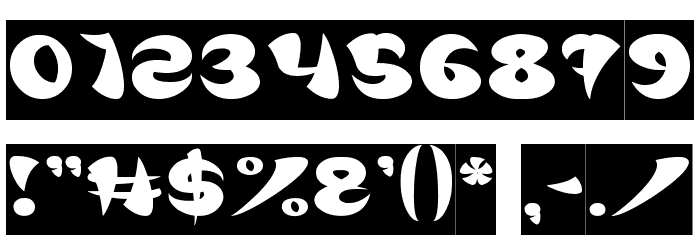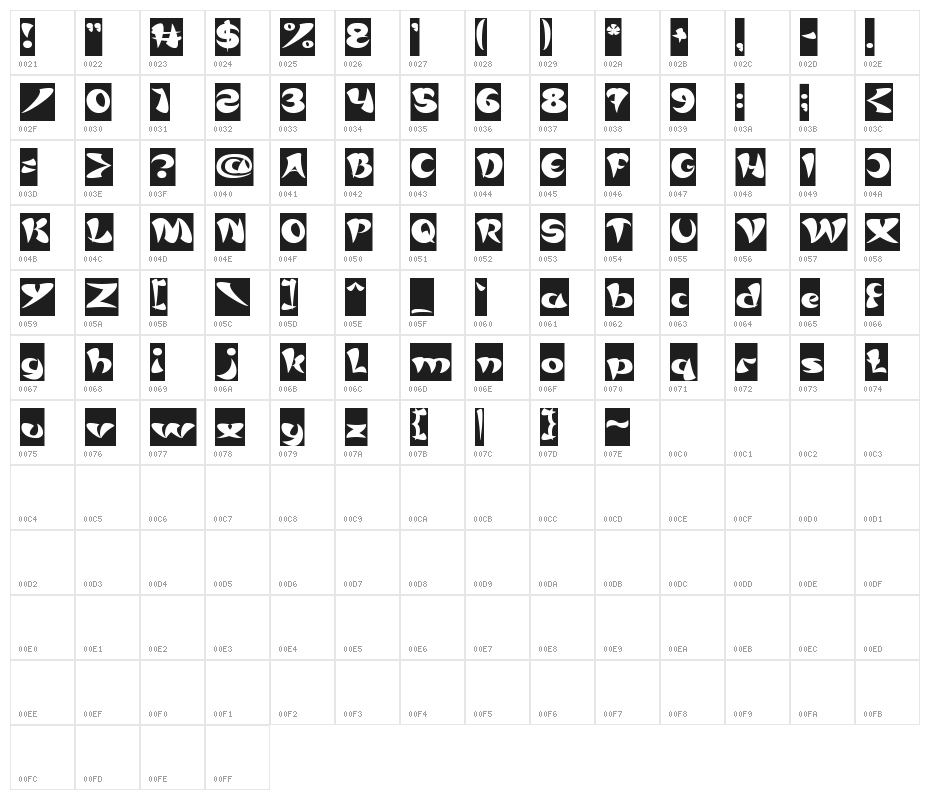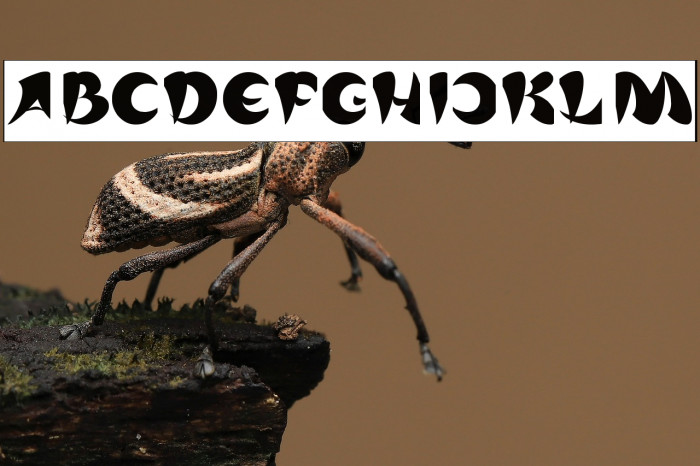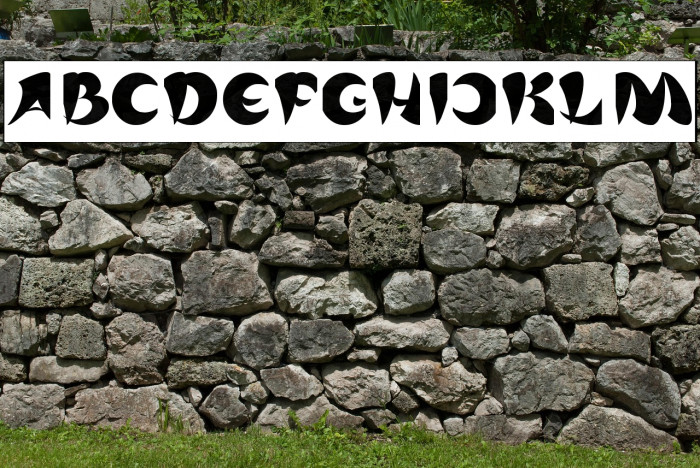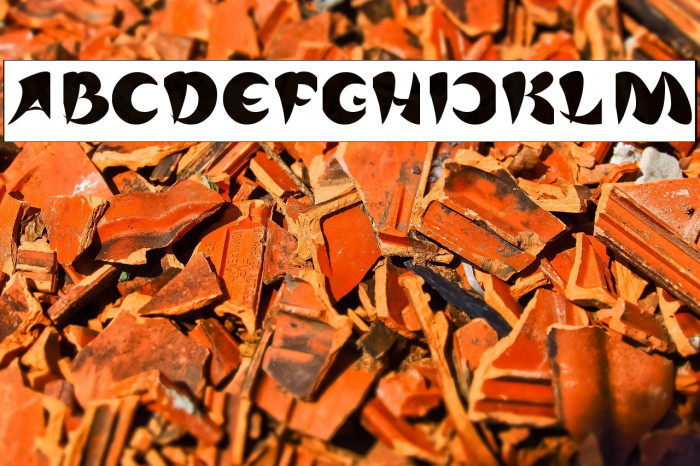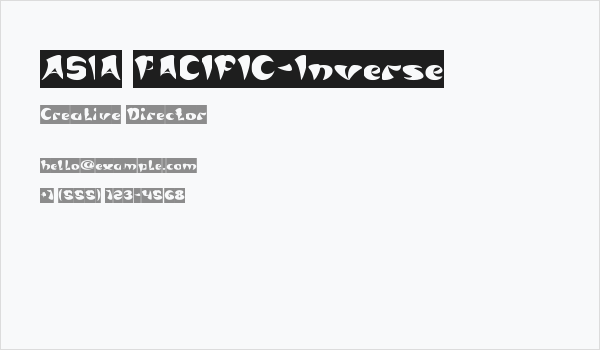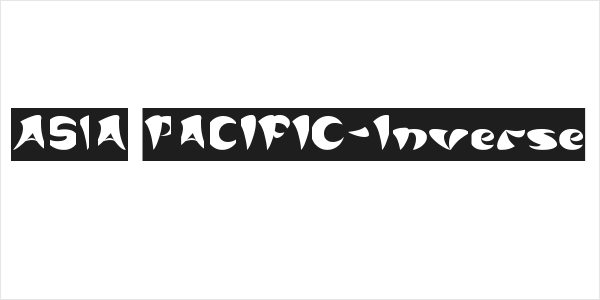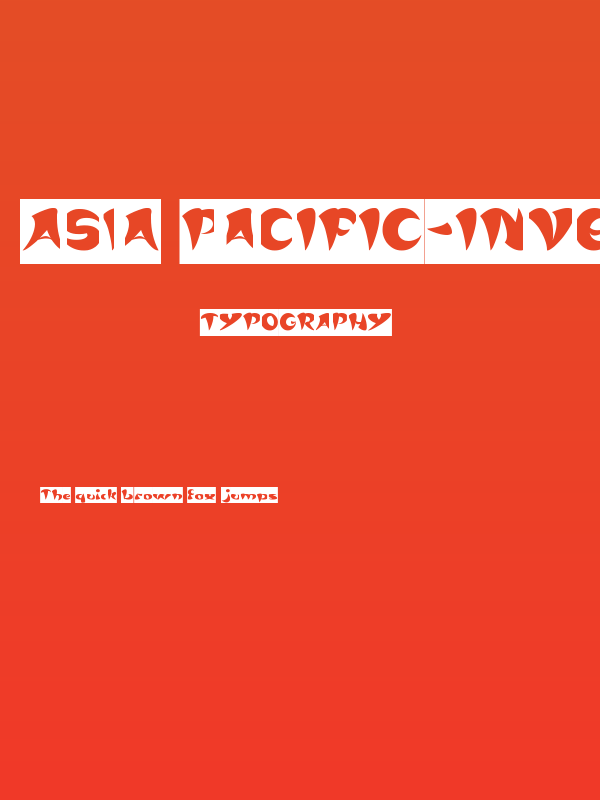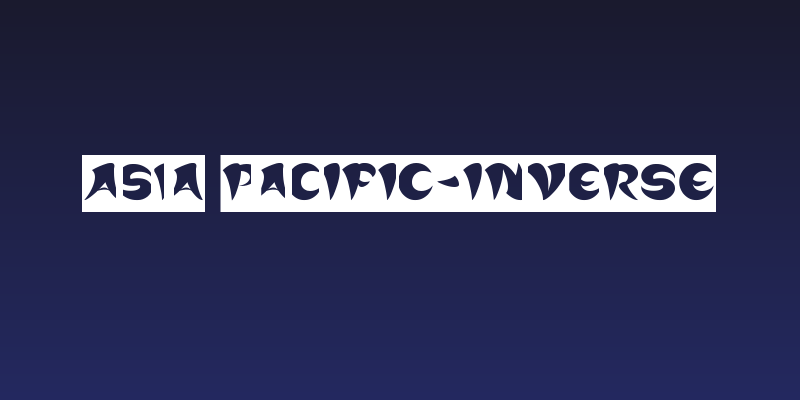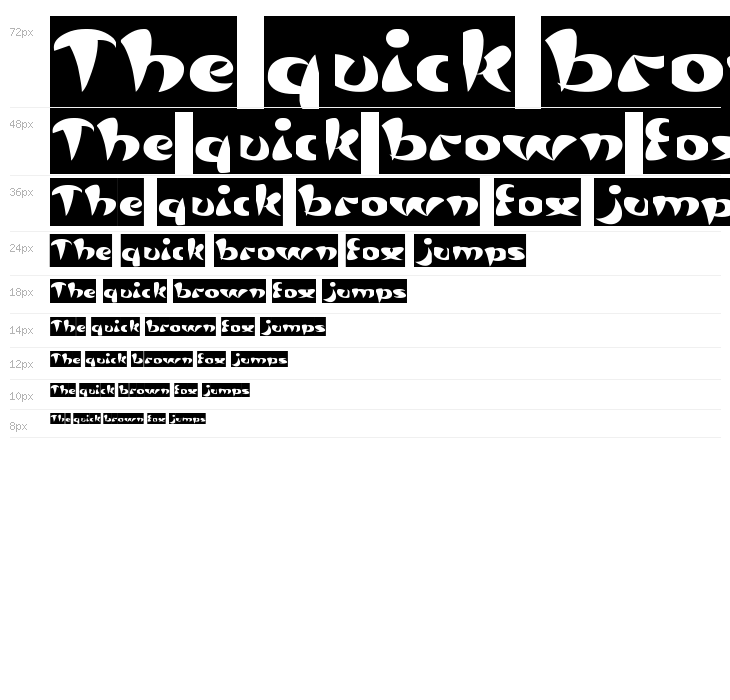
ASIA PACIFIC-Inverse Font
ASIA PACIFIC-Inverse Description
This font features a bold and dynamic style with a unique, artistic flair. The characters are crafted with a high contrast between thick and thin strokes, creating a visually striking appearance. The design incorporates sharp angles and smooth curves, giving it an energetic and modern look. The uppercase and lowercase letters maintain a consistent style, while the numerals and special characters complement the overall aesthetic. This font's distinctive design makes it ideal for projects that require a strong visual impact.
| Proposed Projects | Ideal for branding, poster design, album covers, and any project needing a bold, artistic touch. |